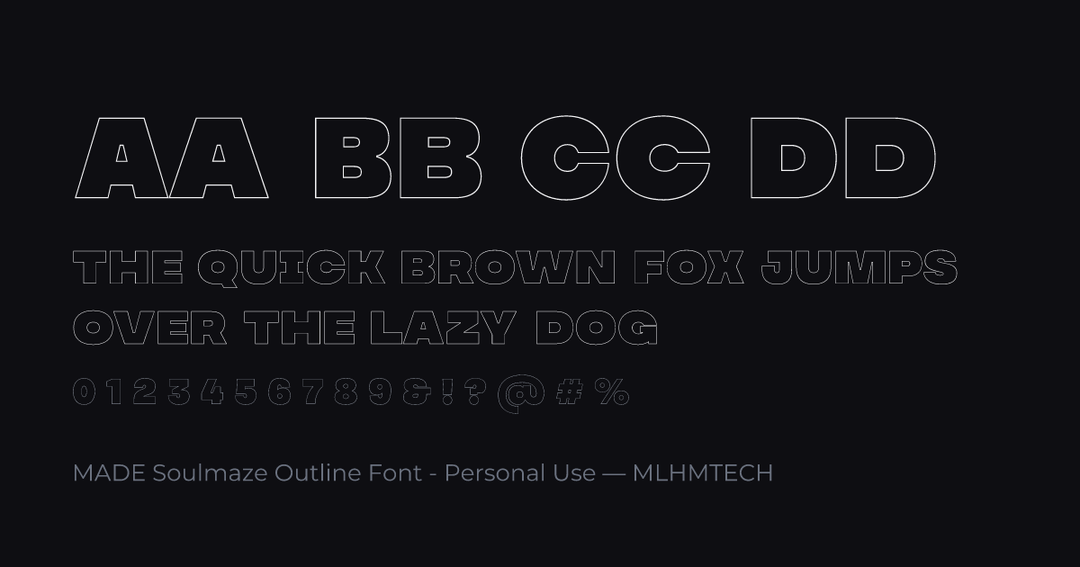
MADE Soulmaze Outline Font - Personal Use
MADE Soulmaze Outline is a decorative outline font ideal for adding a modern, edgy touch to your designs. Perfect for logos, posters, and social media graphics.
MADE Soulmaze Outline is a unique display font featuring clean, geometric outlines that give your text a contemporary and stylish look. Its bold yet airy design makes it stand out in headlines, branding, and promotional materials.